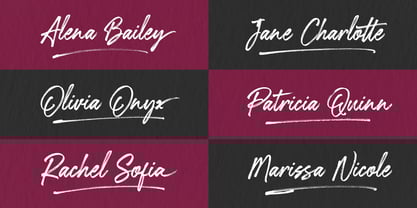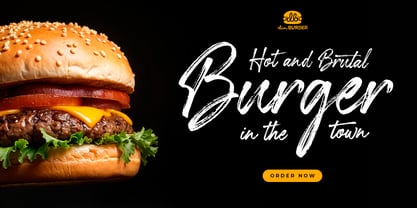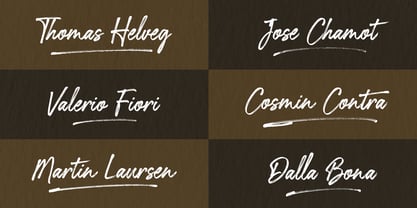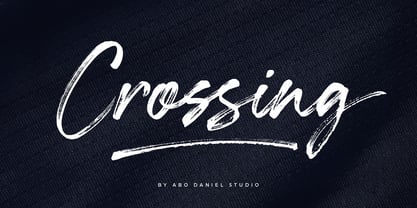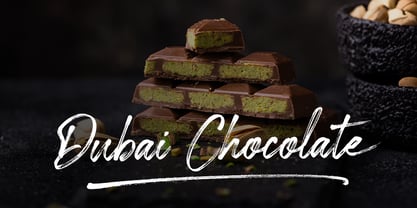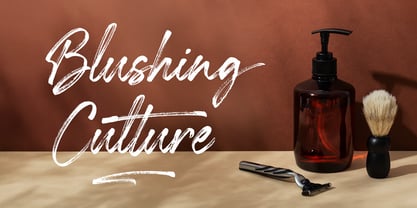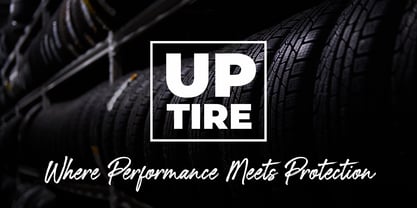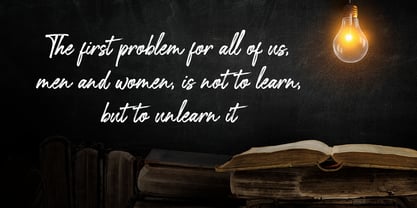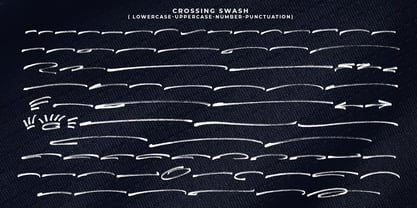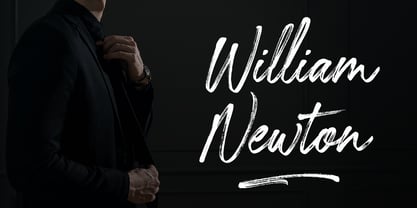
Crossing
The Crossing Font Family was designed by Abo Daniel and published by Abo Daniel. Crossing contains 2 styles and family package options.
CROSSING is an organic handbrush script font that blends effortless charm with raw brush texture. Crafted with a real brush-pen, Crossing flows with an organic, handwritten rhythm — perfect for designs that crave authenticity and warmth.
With smooth curves, dynamic strokes, and a touch of imperfection, Crossing brings a human feel to your creative work. Whether you're designing logos, packaging, wedding invitations, or social media graphics, this font adds a bold yet graceful script style that stands out.
Crossing is Perfect for:
• Branding & logo design
• Quotes & handwritten notes
• Invitations & greeting cards
• Packaging, labels, and more
Let your words dance with personality — Crossing delivers expressive brush script style with heart and flair.